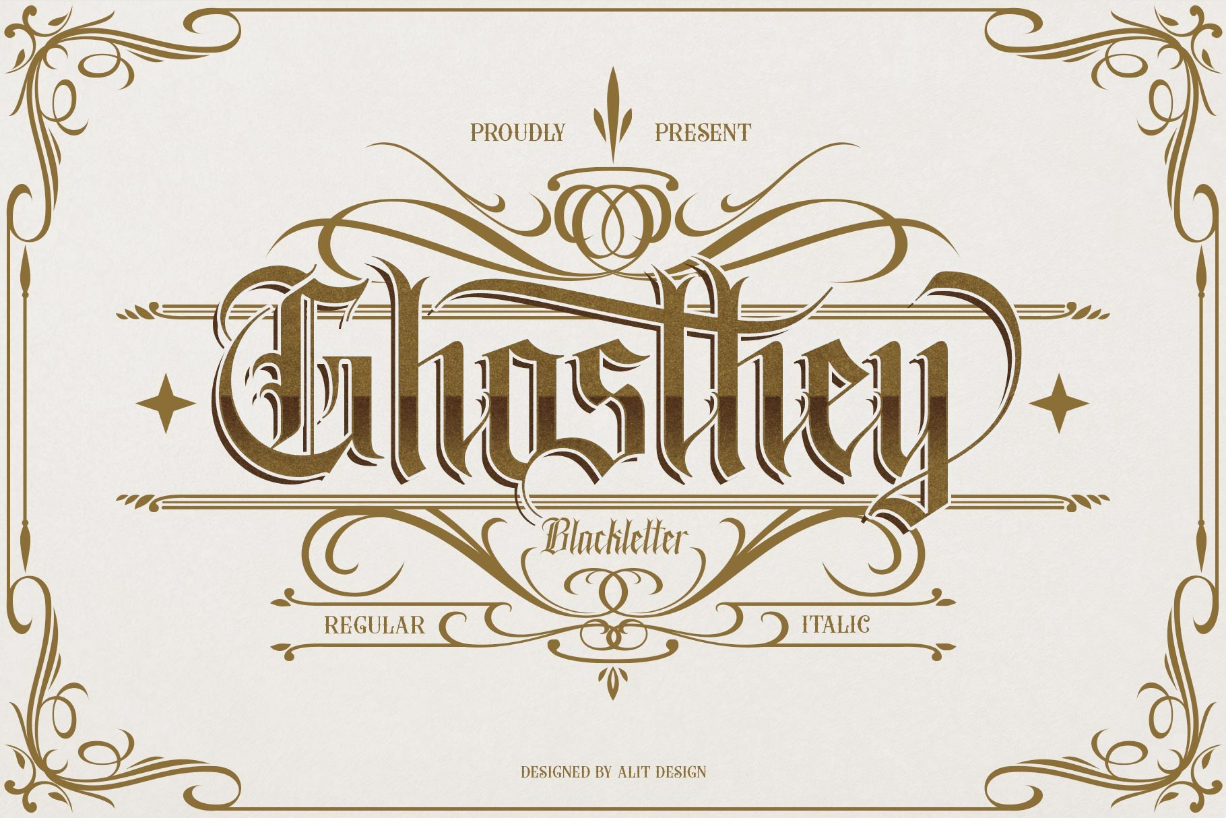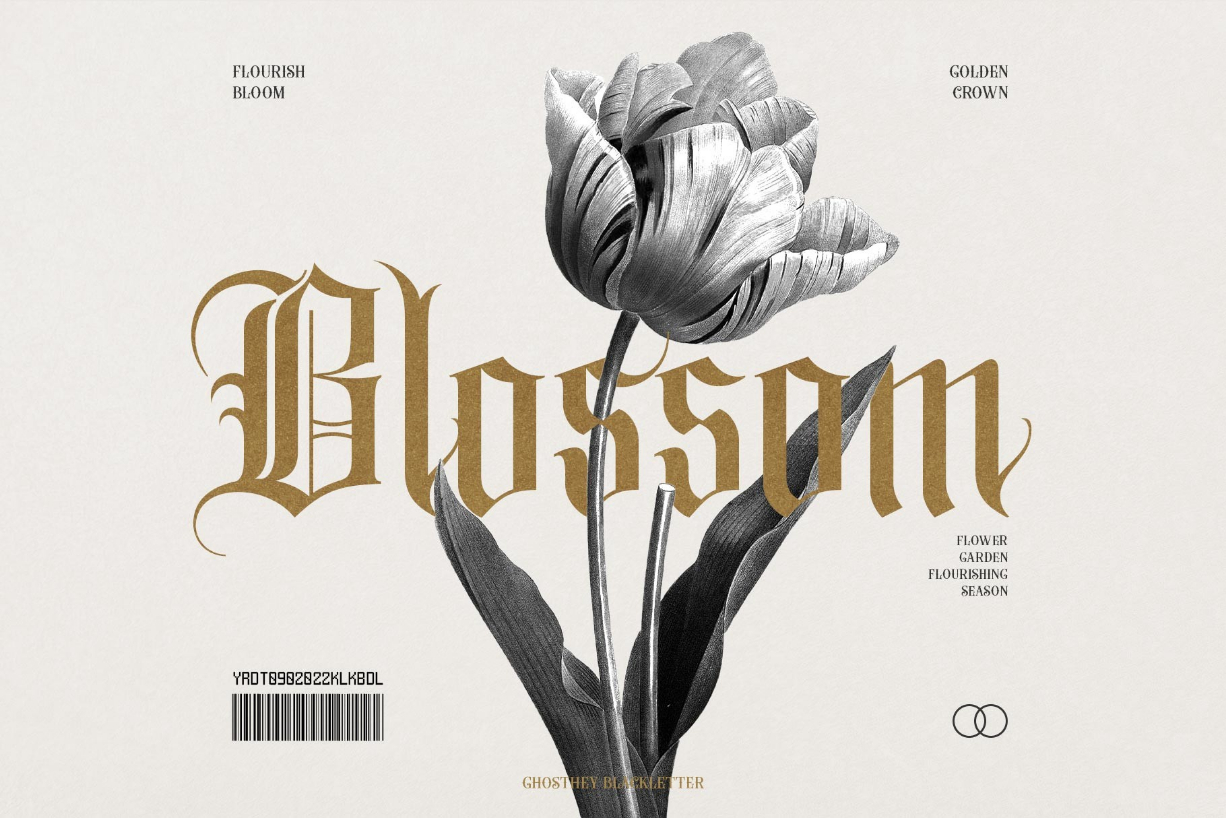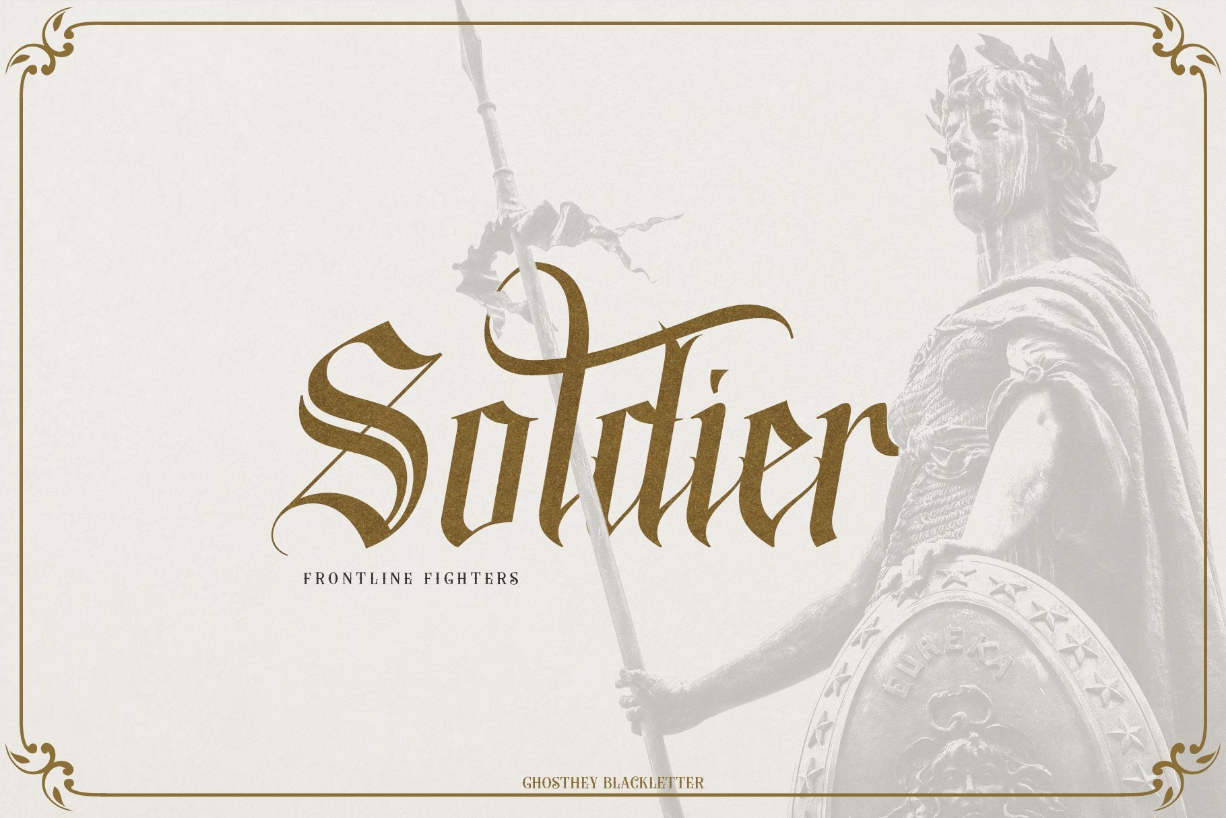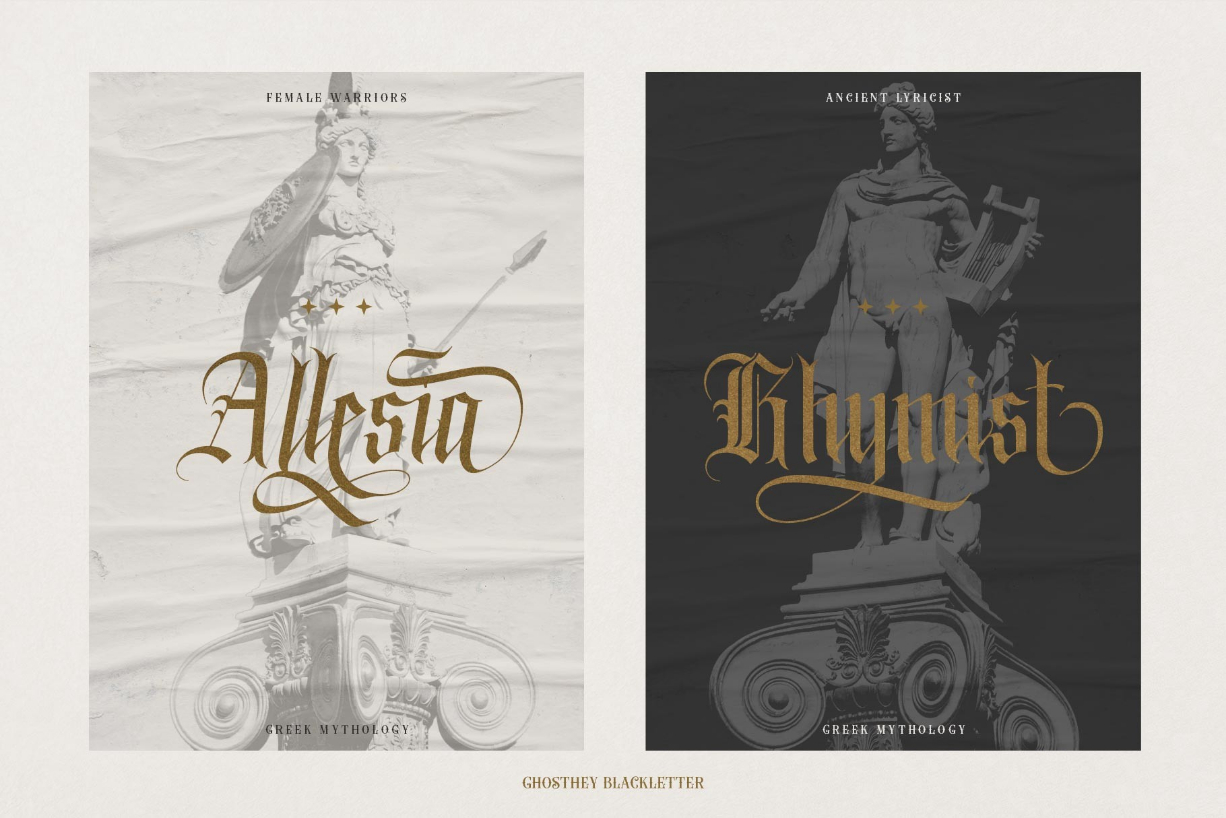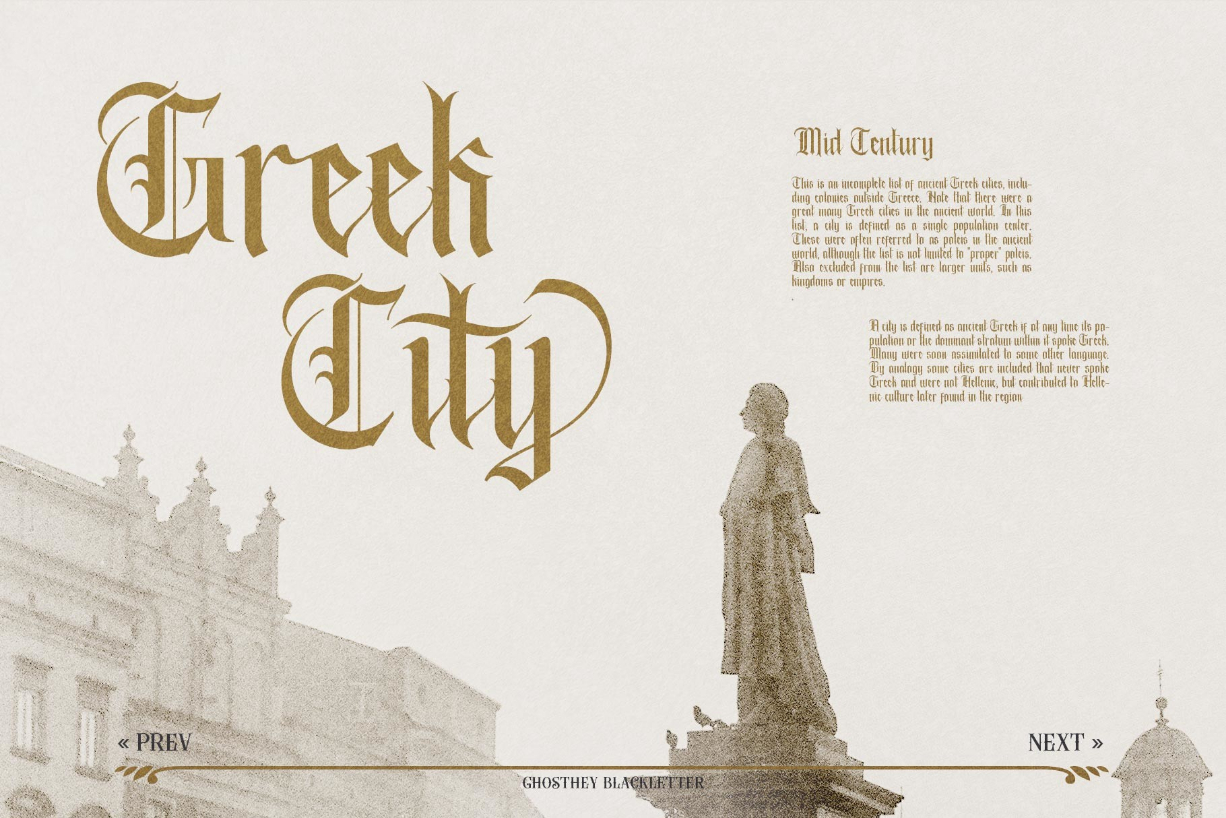
About Ghosthey Font
Ghosthey is a highly detailed and beautiful blackletter font. This font is PUA encoded which means you can access all of the glyphs and swashes with ease!